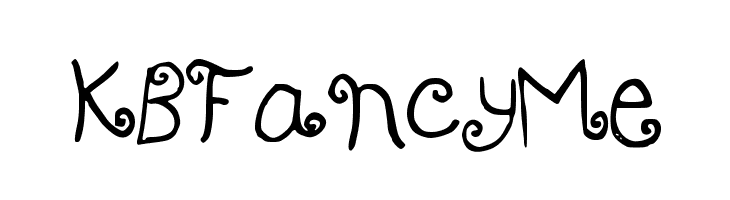
A whimsical, decorative font with playful swirls and elegant flourishes.
An ornate, decorative font with intricate swirls and embellishments.
A playful, bold outline font with a comic book feel.
A playful, rounded font with whimsical paw print accents.
A playful, cartoon-style font with subtle shadow effects for a 3D look.
A playful, whimsical font with cursive-like uppercase and simple lowercase letters.
A playful, textured font resembling crayon drawings, ideal for creative projects.
A playful, icy-themed font with bold, rounded letters adorned with icicle drips.